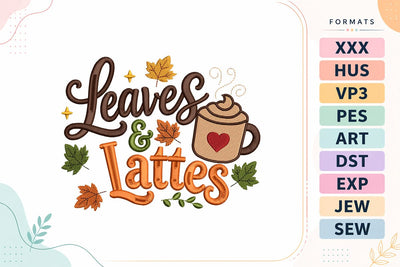
Autumn Leaves & Lattes Embroidery Design
A cozy autumn typography embroidery design featuring a steaming coffee mug, colorful fall leaves, and elegant lettering. Perfect for sweatshirts, hoodies, tote bags, pillows, kitchen towels, coffee lovers, home décor, and handmade fall gifts. Sizes: 4x4, 5x7